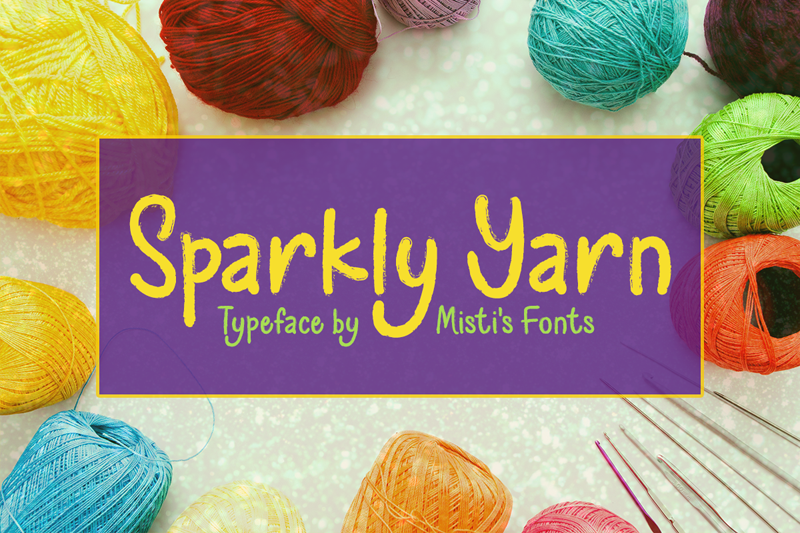
Preview and download Sparkly Yarn Font. Created by Misti's Fonts in Script Brush styles with Free for personal use license.
Introducing Sparkly Yarn, a delightful handwritten chalk-styled font that brings a touch of whimsy to your projects. With its playful, textured strokes, Sparkly Yarn is perfect for creating charming posters, invitations, and crafts. Add a sprinkle of fun and creativity with this unique font! Terms Of Use and Commercial Licensing: https://mistifonts.com/sparkly-yarn/ |